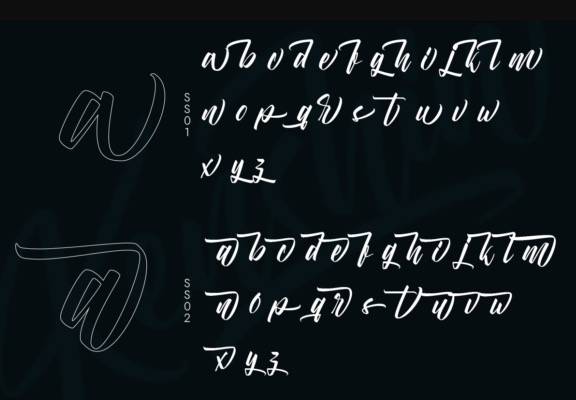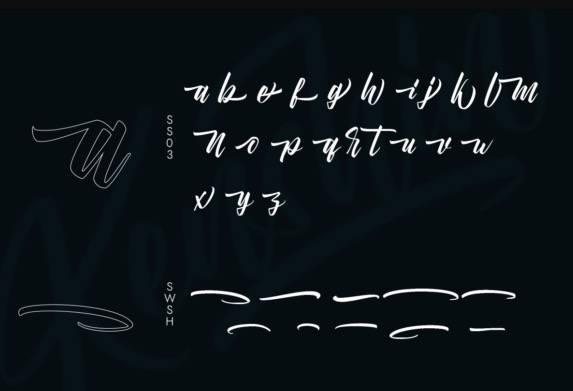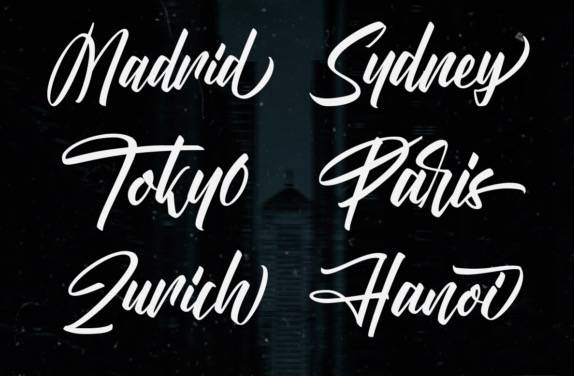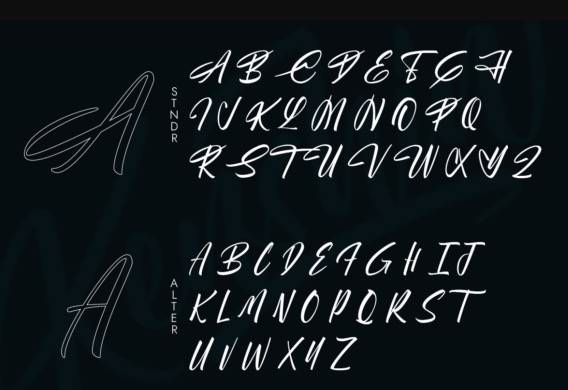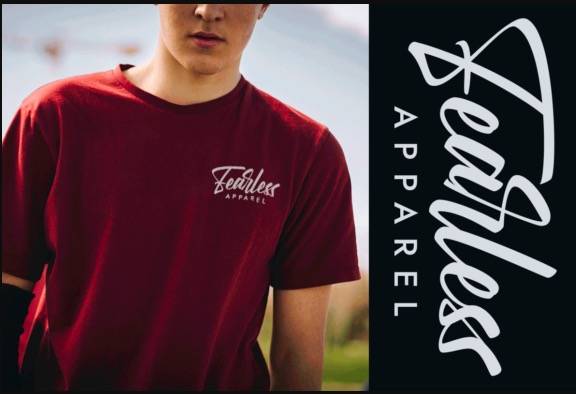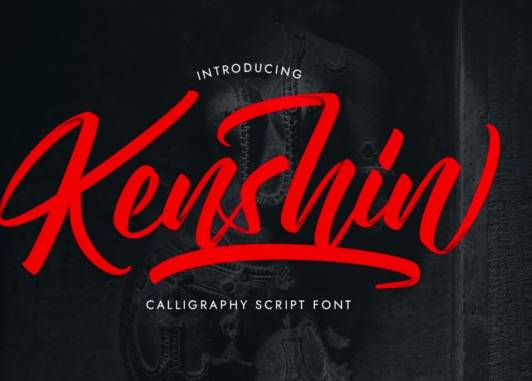
Kenshin Font is a new calligraphy typeface for professional traditional designers. This font has modern calligraphy strokes that are extremely popular.
Kenshin was designed to give designers a free alternative which will help them achieve that lettering feels everyone all love. With Kenshin Calligraphy Font! Awesome for wedding, slider blog, stamps, greeting card, escort card, event, table number, header menus, etc. And Opentype features of this font give designers more alternatives in designing.
Kenshin Font
Kenshin Calligraphy Font